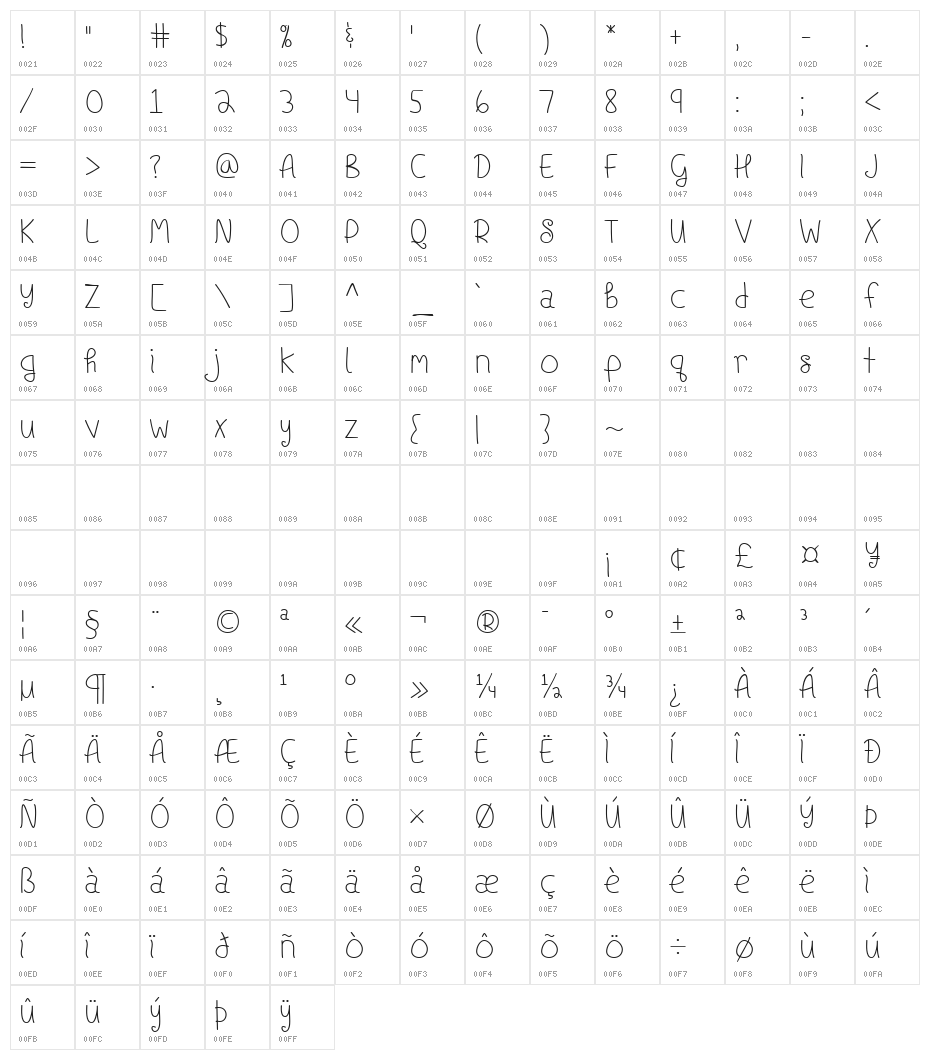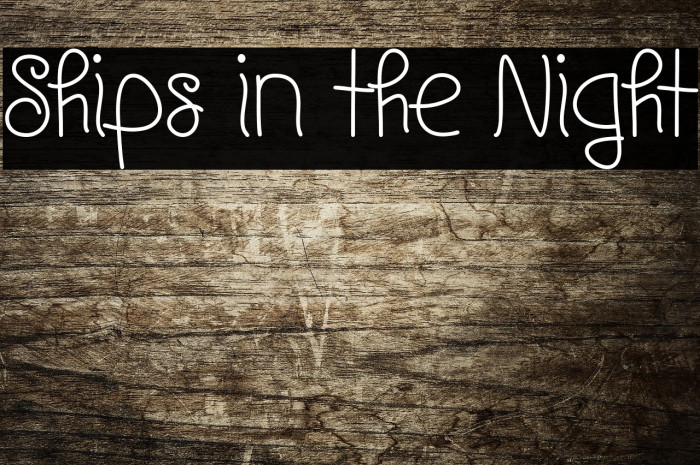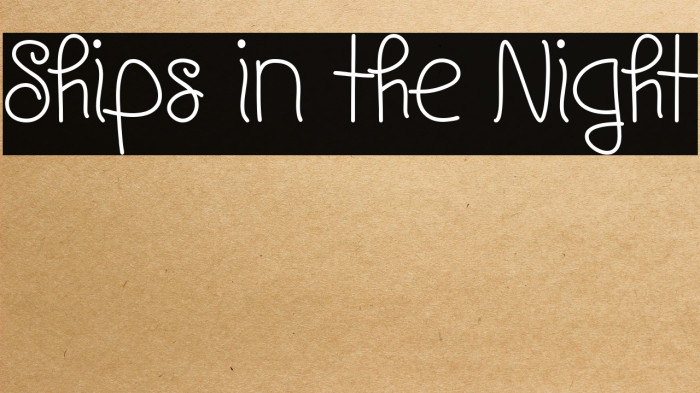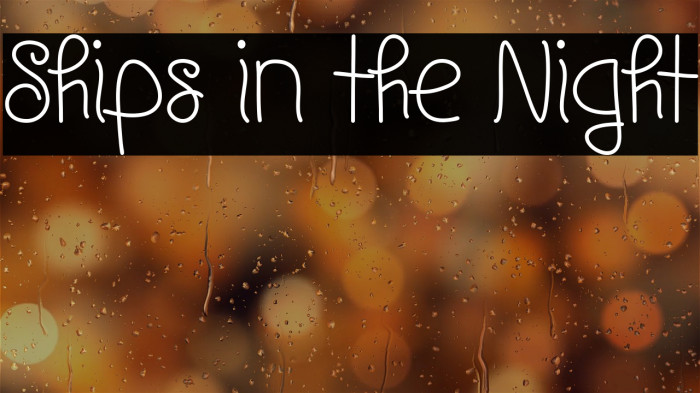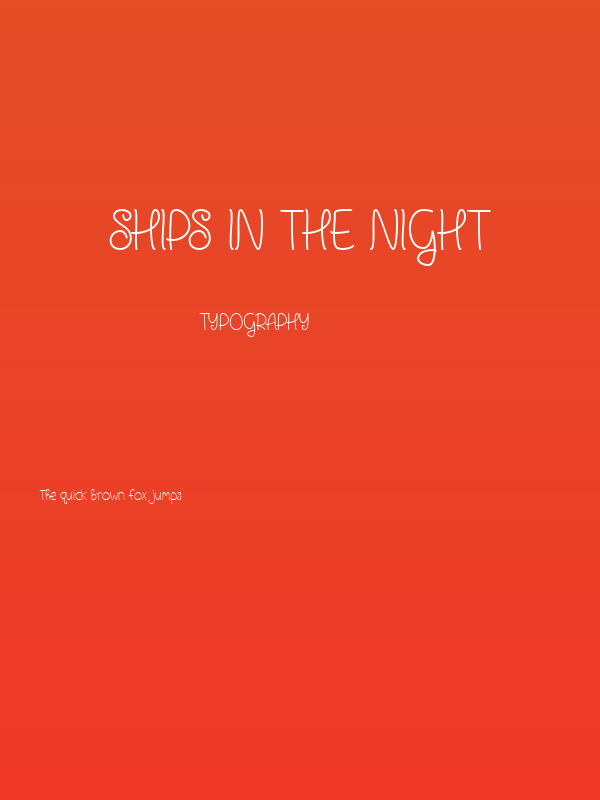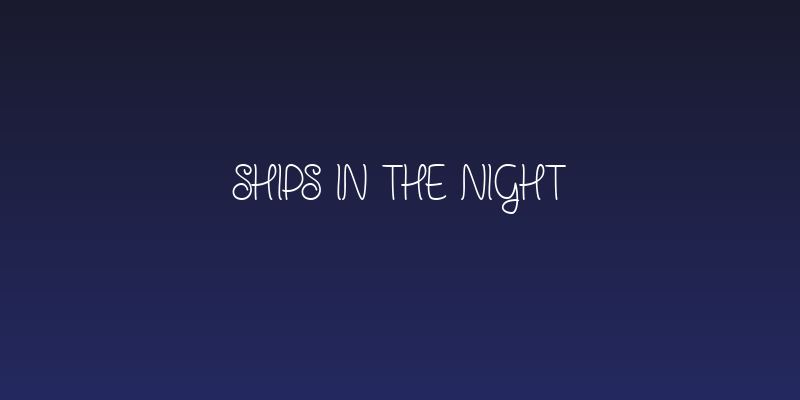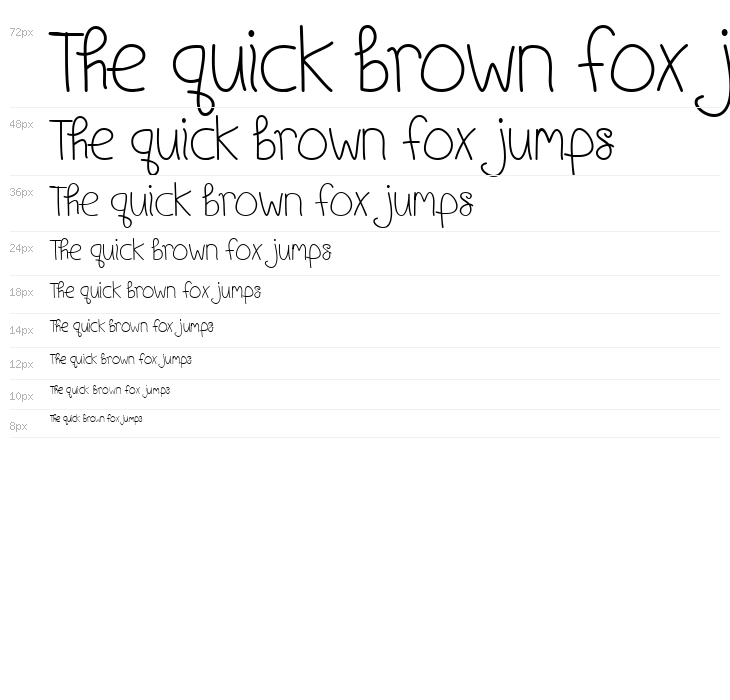
Ships in the Night Font
Ships in the Night Description
This font features a playful and whimsical handwritten style, characterized by its flowing, rounded letterforms and a casual, informal appearance. The strokes are consistent in weight, giving it a uniform look, while the slight slant and irregularities in the characters add a personal touch. The uppercase and lowercase letters maintain a cohesive style, with the uppercase being slightly taller and more pronounced. Numbers and special characters are designed to match the overall aesthetic, ensuring versatility across different uses. This font's charm lies in its simplicity and approachability, making it suitable for projects that require a friendly and inviting tone.
| Use Case | Headlines, Informal text, Branding |
| Proposed Projects | Ideal for greeting cards, children's books, casual invitations, and playful branding. |